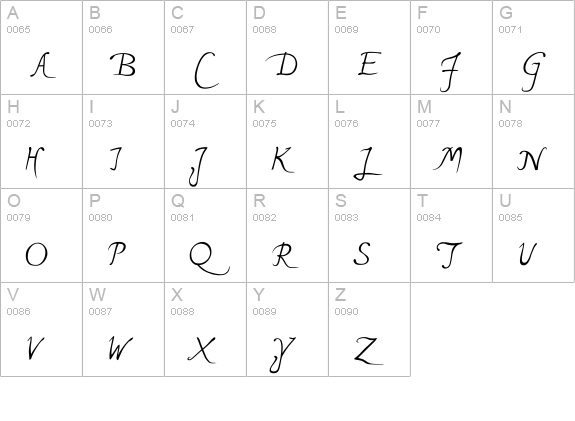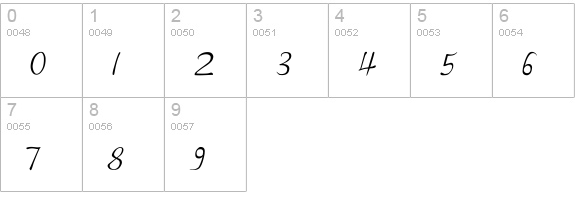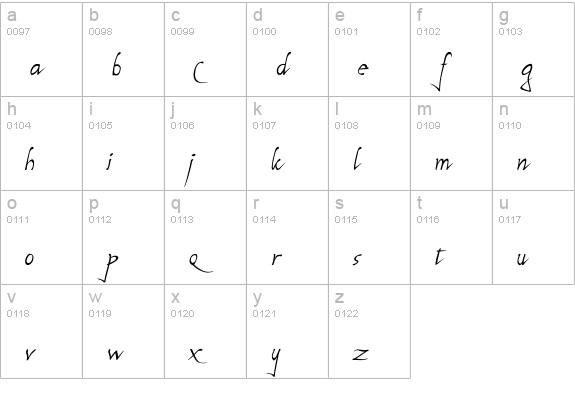
P22 Michelangelo Regular is the standard, neutral variant in the P22 typeface family \xE2\x80\x94 well suited to general body text, paragraphs, and standard typographic work.
The P22 Michelangelo Regular font is a timeless and elegant typeface that pays homage to the artistry of the renowned Renaissance artist, Michelangelo. With its classic and sophisticated design, this font exudes a sense of tradition and refinement, making it perfect for a wide range of creative projects. What sets the P22 Michelangelo Regular font apart is not only its exquisite craftsmanship but also the fact that it is available for free download at FontsMarket.com. This means that you can easily access this high-quality font without any cost, making it a valuable resource for designers, artists, and enthusiasts alike. Whether you're working on a print design, branding project, or digital artwork, the P22 Michelangelo Regular font can add a touch of sophistication and elegance to your creations. Its versatility and timeless appeal make it a must-have font in your collection. Download it for free today and elevate your designs with the timeless beauty of the P22 Michelangelo Regular font.